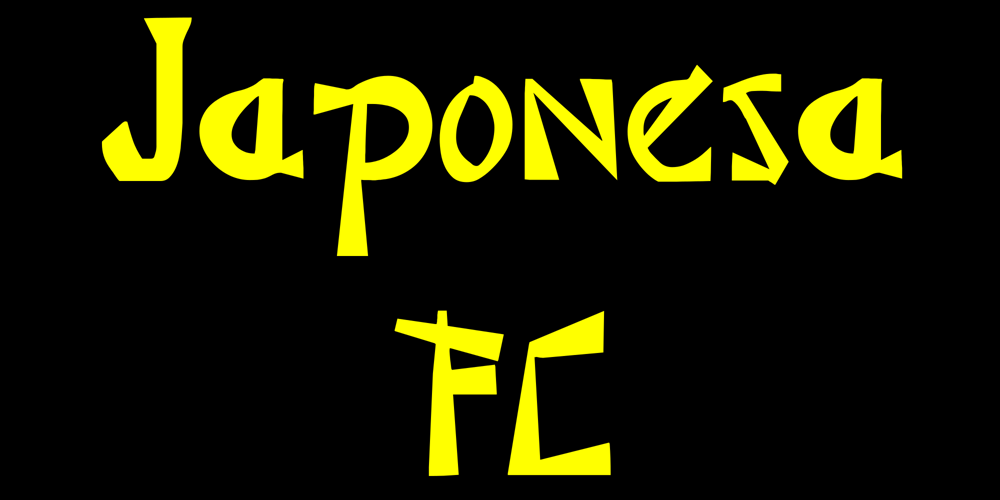
Japonesa FC Font Family was designed by Paulo W and published by Intellecta Design. Japonesa FC contains 1 styles and family package options. Immerse yourself in a world of creative expression with the Japonesa FC Font. Drawing its inspiration from the intricate glyphs of the Japanese language, this font breathes vitality into comic books and manga, while captivating audiences on marketing banners. Seamlessly blending simplicity with a hint of quirkiness, the Naive Font is your go-to choice for bold, dynamic text that stands out, effortlessly transforming your work into a compelling masterpiece. Experience the fluidity and versatility of the Naive Font and unlock your creativity.